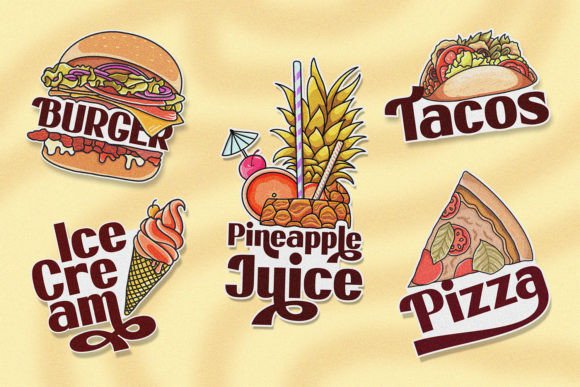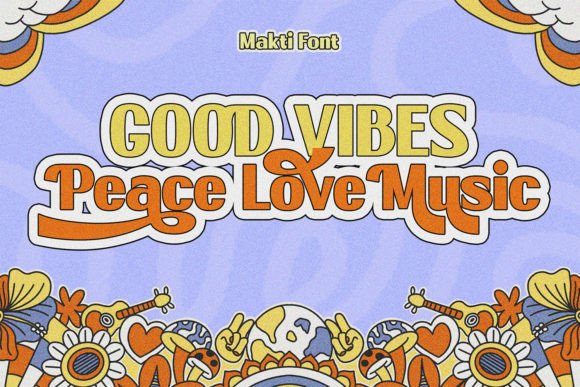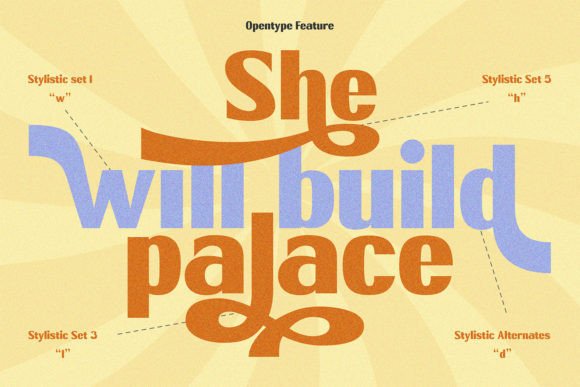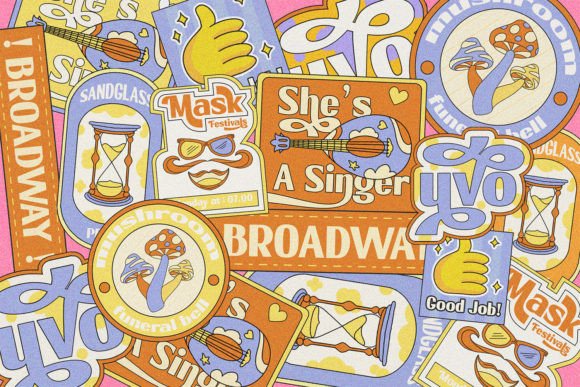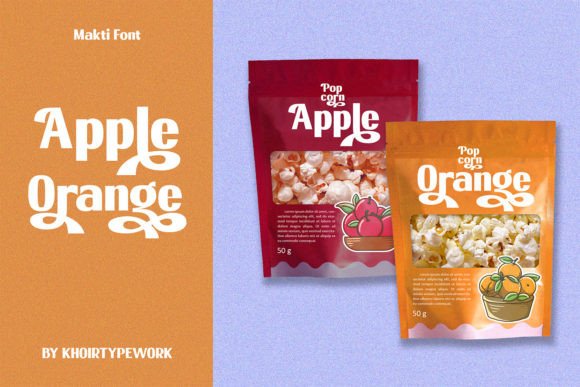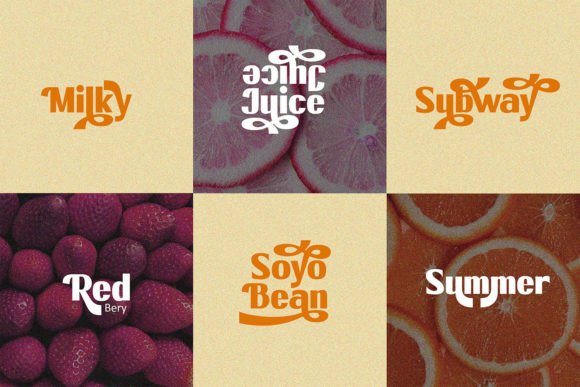
Introduction to Makti Font
Do you remember that moment when you were brainstorming ideas for your creative project and the perfect font just popped into your mind? For designers, finding the right font can be the key to unlocking a design’s full potential. This is exactly what the Makti Font does – it brings a touch of joy and playfulness to any design project.
As a free download, the Makti Font has become a valuable resource for designers looking for a high-quality, retro-style display font. Whether you’re working on a cartoon-related design, creating a quote, or developing a brand identity, this font is sure to add a unique touch to your work. With its transparent background and versatility, the Makti Font is perfect for designers who want to add a bit of whimsy to their designs.
Key Features of Makti Font
- High-quality design resource suitable for creative projects, offering a unique and stylish touch.
- Characterized by its transparent background, allowing for easy layering and customization in creative projects.
- Perfect for use in a variety of creative projects, including logos, graphics, and typography-based designs.
Honest Review: Makti Font
I recently came across the Makti Font, a free design resource that caught my attention with its unique and modern style. I decided to dive in and see how it performs in a creative project.
- High quality design that’s perfect for creative projects
- Transparent background option, allowing for easy integration with various design elements
- Modern and unique style that can add a fresh touch to any design
- ⚠️ Limited character set, which may not be suitable for complex or lengthy text-based projects
- ⚠️ Not ideal for use in small text sizes, as it may become difficult to read
Overall, I’m impressed with the Makti Font. It’s a great addition to any designer’s toolkit, especially for those looking for a high-quality, modern font to use in their creative projects. With a bit of caution regarding its limitations, I’d definitely recommend giving it a try.
Makti Font is commonly used in various design projects, including branding materials, social media graphics, posters, presentations, and documents. Its unique design and high quality make it an ideal choice for creative professionals and individuals looking for a free download design resource.